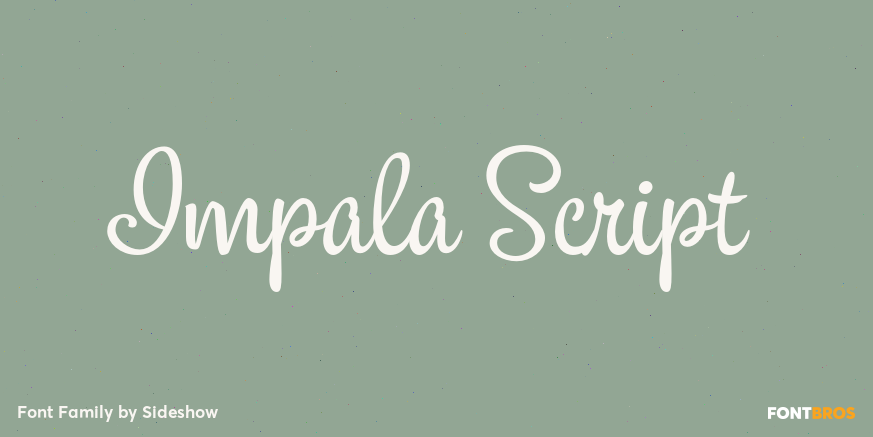
Impala Script
About Impala Script
Elegant and graceful as the gazelle for which it is named, Impala Script is the perfect blend of formal and casual. It\’s equally comfortable in a display or text setting for many applications. Inspired by late 1940s Hollywood with a touch of Art Deco…